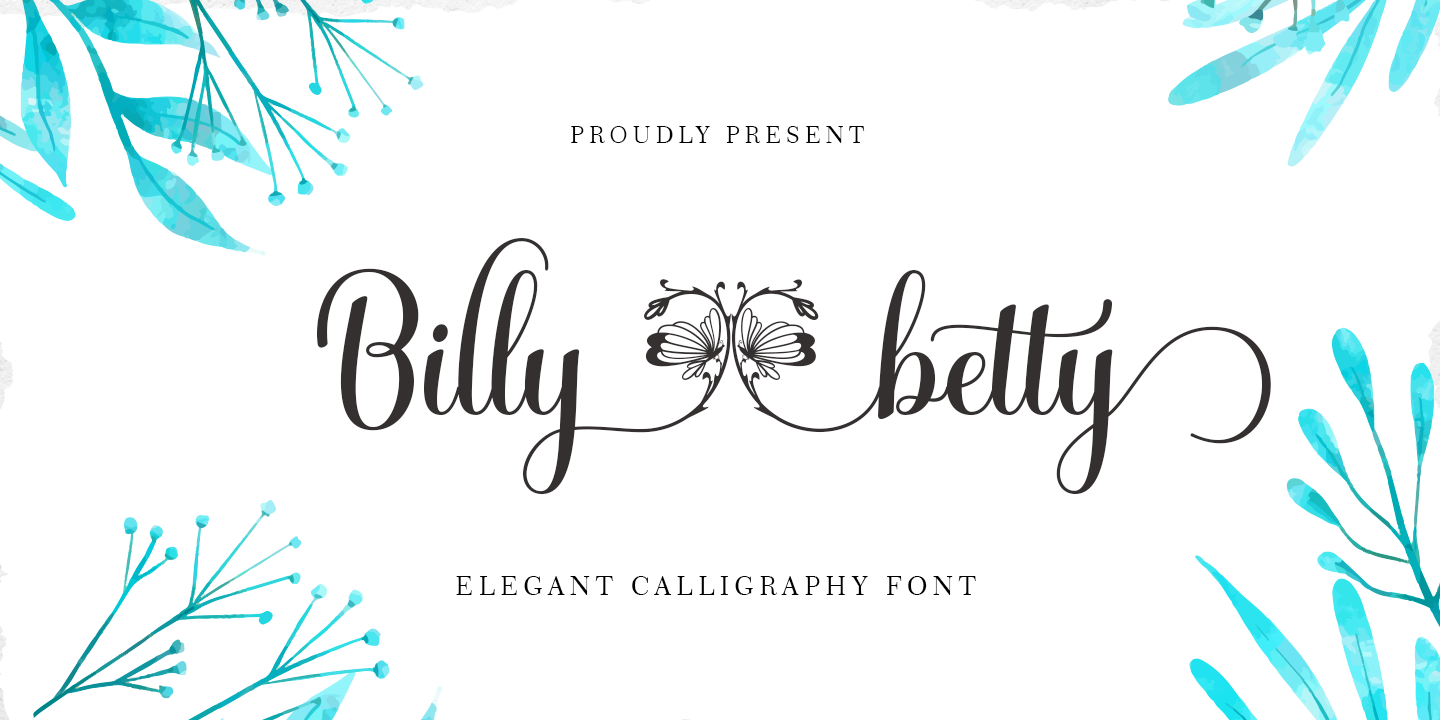
Billy Betty Font is perfect for vintage diner signage, retro Americana marketing, classic drive-in restaurant menus, nostalgic car show promotions, 1950s themed events, old-fashioned soda fountain branding, vintage clothing labels, classic Americana museums, rockabilly music venues, and charming projects that celebrate the wholesome simplicity and nostalgic appeal of mid-century American culture with authentic period charm.
What makes Billy Betty Font so exciting is its delightful capture of mid-century American nostalgia through friendly letterforms that embody the optimistic spirit and wholesome values of 1950s Americana. This typeface radiates the essence of small-town charm and classic American culture, featuring approachable curves and cheerful proportions that suggest chrome bumpers and neon signs while maintaining excellent readability for contemporary retro applications celebrating authentic American heritage.
Billy Betty Font family includes multiple nostalgic variations: Regular, Bold, Light, Retro, Classic, Vintage, Americana, and Diner versions. Each style maintains the font's inherent mid-century character while offering different levels of vintage appeal and Americana authenticity, enabling designers to create genuine retro aesthetics that resonate with audiences seeking connection to classic American culture and nostalgic entertainment experiences.
The nostalgic appeal of Billy Betty Font Free Download makes it exceptionally valuable for hospitality and entertainment industries celebrating American heritage and retro culture. This font successfully communicates wholesome charm and authentic Americana, making it perfect for businesses that want to evoke feelings of nostalgia and connect with audiences who appreciate classic American values. Its friendly character works beautifully across both digital retro platforms and vintage-themed print materials, while its distinctive mid-century design creates immediate emotional connection with audiences who cherish American cultural heritage and nostalgic entertainment.